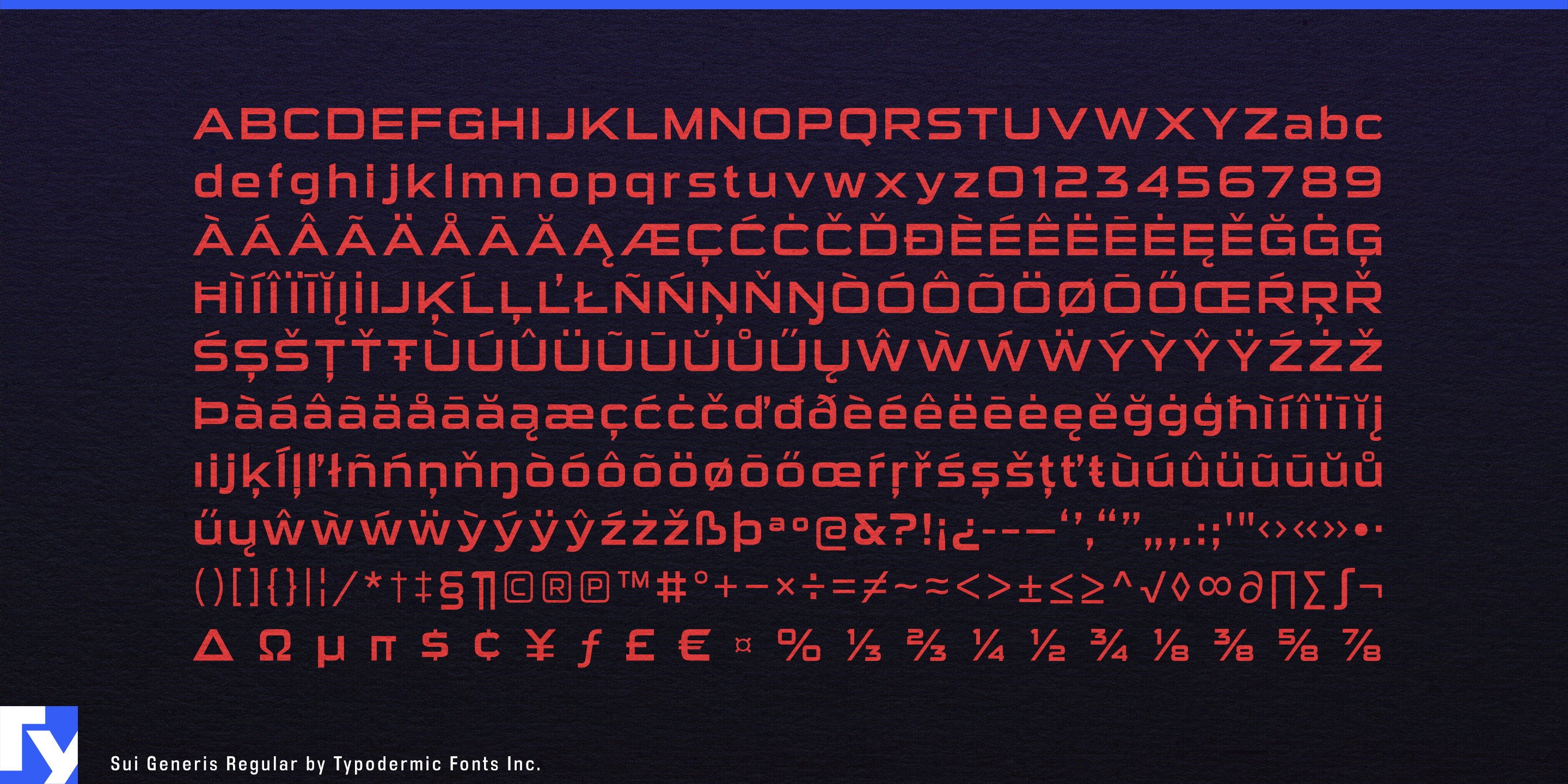
Sui Generis
Performance brands often have an awkward typographic choice. Neutral geometric sans serifs can make technical products look anonymous; aggressively angular sports faces can turn everything into racing graphics or science fiction. Sui Generis occupies a useful middle ground. Its rounded-square construction feels engineered and athletic, but softer and more consumer-oriented than the usual hard-edged performance typography.
That makes it especially well suited to performance and recovery technology. Massage guns, compression boots, wearable heat systems, muscle-stimulation devices, recovery sleeves, smart strength equipment, connected training machines, red-light devices, and portable heating or cooling systems all need product names that can live on molded housings, carrying cases, packaging, retail displays, launch graphics, and exhibition stands.
Technical footwear provides another strong territory. Road-running shoes, trail runners, training shoes, indoor-court footwear, recovery shoes, and performance-lifestyle sneakers can use Sui Generis for model names, shoeboxes, insoles, retail walls, launch campaigns, and apparel capsules. Its turn-of-the-millennium sports-tech flavor gives these products more character than a neutral geometric sans without requiring a full Y2K treatment.
Sports eyewear and protective equipment extend the same language into molded, aerodynamic objects. Cycling glasses, running eyewear, ski goggles, performance sunglasses, helmet visors, cycling helmets, ski helmets, and protective cases can use the family for model series, packaging, retail displays, and campaign typography.
Racket and paddle equipment provides another useful application. Badminton rackets, padel rackets, performance pickleball paddles, court shoes, equipment cases, and tournament campaigns all need typography for model families and product technologies. Sui Generis offers a technical athletic voice that is less macho than many angular equipment fonts.
Performance cycling equipment fits the same system: cycling computers, indoor trainers, helmets, wheel systems, smart pedals, lights, hydration equipment, and training accessories. These products combine precision engineering with consumer-facing design, and Sui Generis can carry model names, technical campaigns, packaging, and retail graphics without looking either corporate or overtly futuristic.
Sui Generis belongs to an earlier idea of sports technology, and that is part of its appeal now. Its slightly peculiar early-digital geometry gives contemporary performance products more flavor while avoiding the aggressive angularity of conventional racing and esports typography.